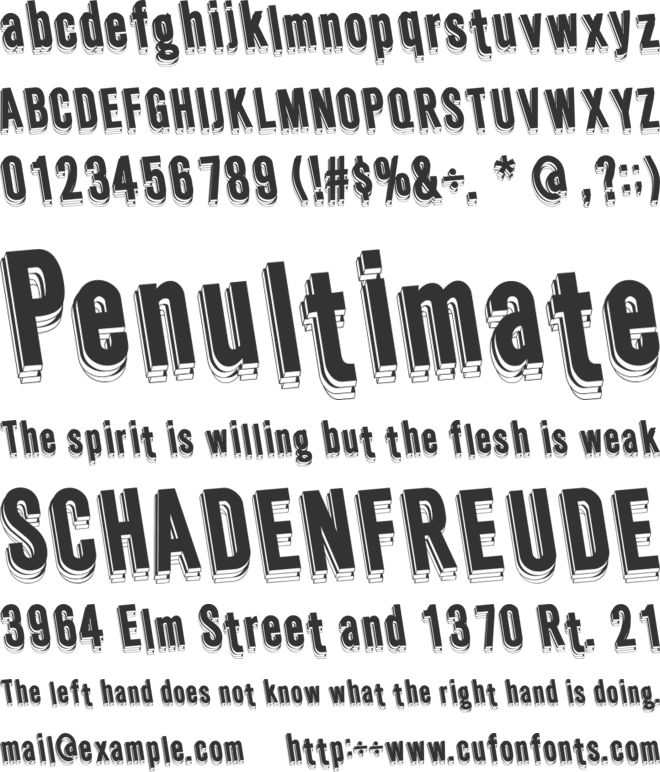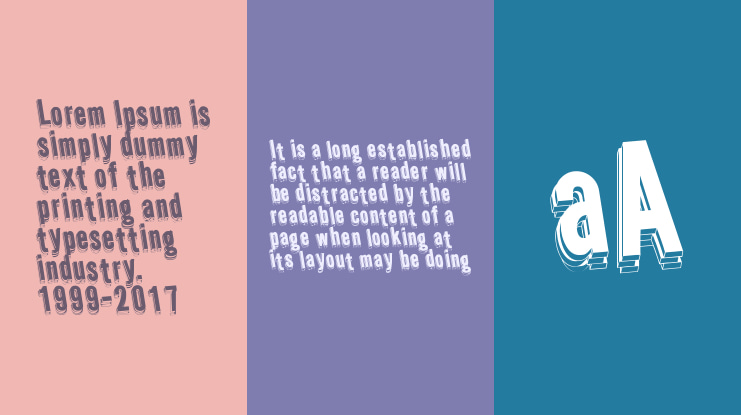
Wafer Font
WAFER is another free font created by Paul Reis. WAFER is a unique and creative headline font that gives dimension and perspective to your type. Feel free to use it for personal or commercial use.